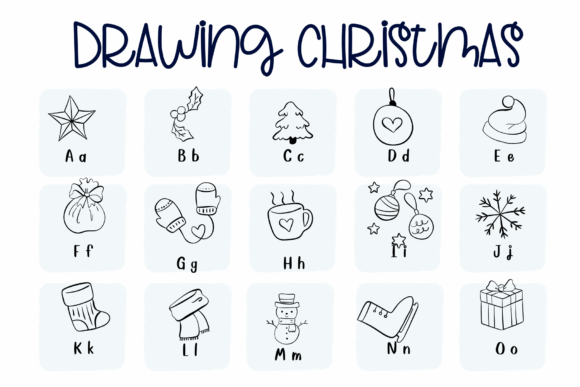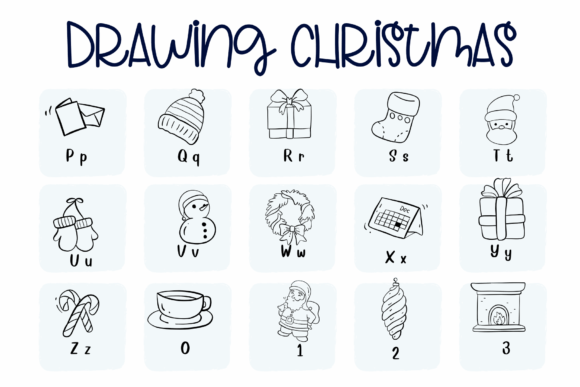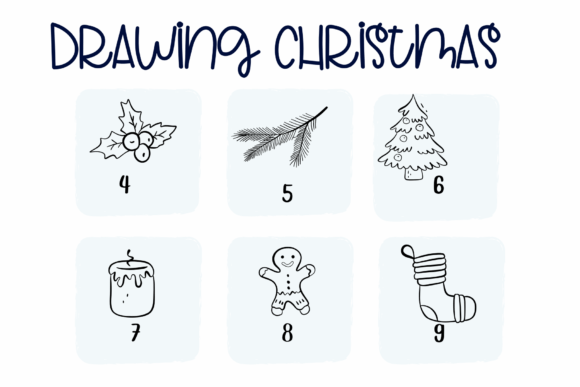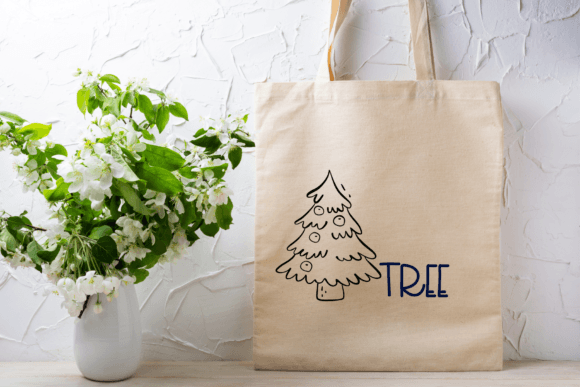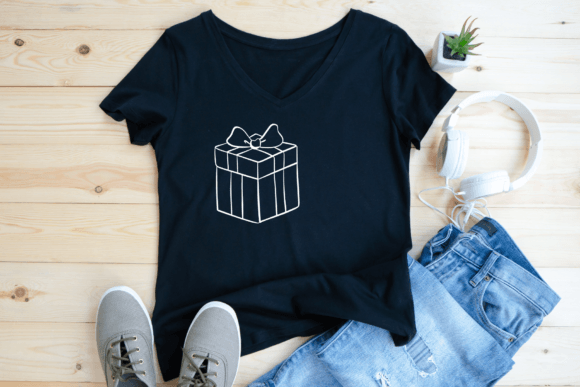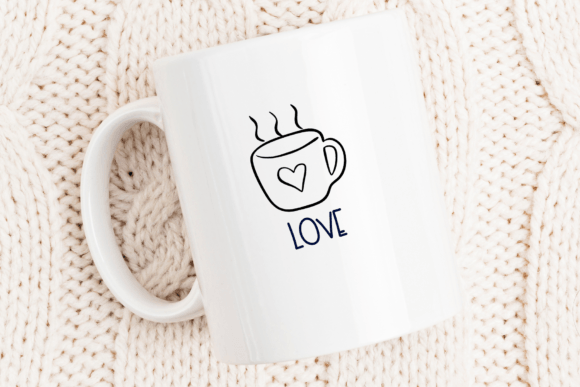
Drawing Christmas Font: Add a Festive Touch to Your Creative Projects
Are you looking for a unique and fun font to add a festive touch to your creative projects? Look no further than the Drawing Christmas font! This dingbat font is perfect for designers and crafters who want to add a personal touch to their work. In this article, we’ll explore the features and benefits of the Drawing Christmas font and how it can enhance your creative projects.
What is Drawing Christmas Font?
Drawing Christmas is a dingbat font with a fun and festive theme. It’s designed to bring a touch of Christmas magic to your creative projects. The font features a range of Christmas-themed symbols, including snowflakes, trees, bells, and more. With its unique and playful design, it’s perfect for adding a personal touch to your work.
Features of Drawing Christmas Font
- Unique and Fun Design: The Drawing Christmas font features a range of unique and fun Christmas-themed symbols that will add a festive touch to your creative projects.
- Versatile: This font is perfect for a range of creative projects, including wedding invitations, DIY crafts, decorations, logos, and more.
- Easily Customizable: The font is easily customizable, allowing you to adjust the size, color, and style to suit your needs.
Benefits of Using Drawing Christmas Font
There are many benefits to using the Drawing Christmas font in your creative projects. Here are just a few:
- Adds a Personal Touch: The Drawing Christmas font allows you to add a personal touch to your creative projects, making them stand out from the crowd.
- Increases Visual Appeal: The font’s unique and fun design will add visual appeal to your projects, making them more engaging and attention-grabbing.
- Perfect for Seasonal Projects: The Drawing Christmas font is perfect for seasonal projects, such as Christmas cards, decorations, and holiday-themed crafts.
Ideas for Using Drawing Christmas Font
The Drawing Christmas font is versatile and can be used in a range of creative projects. Here are some ideas to get you started:
- Wedding Invitations: Add a festive touch to your wedding invitations with the Drawing Christmas font.
- DIY Crafts: Use the font to create custom DIY crafts, such as Christmas decorations, gift tags, and more.
- Logos and Branding: Use the font to create custom logos and branding materials for your business.
- Social Media Graphics: Add a festive touch to your social media graphics with the Drawing Christmas font.
Tips for Using Drawing Christmas Font
Here are some tips for using the Drawing Christmas font:
- Experiment with Different Sizes and Colors: Experiment with different sizes and colors to find the perfect combination for your project.
- Use it in Combination with Other Fonts: Use the Drawing Christmas font in combination with other fonts to create a unique and visually appealing design.
- Make it Your Own: Don’t be afraid to get creative and make the font your own by adjusting the design and style to suit your needs.
The Drawing Christmas font is a fun and festive dingbat font that’s perfect for designers and crafters who want to add a personal touch to their creative projects. With its unique and playful design, it’s perfect for a range of projects, from wedding invitations to DIY crafts and decorations. Whether you’re looking to add a festive touch to your work or create a custom logo, the Drawing Christmas font is a great choice.